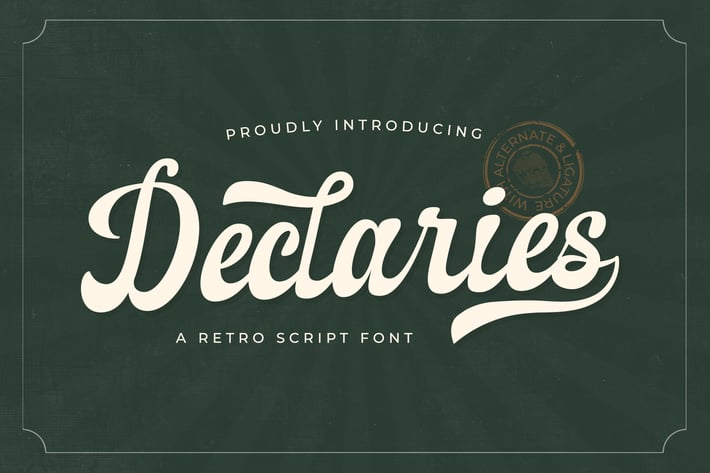
Declaries - A Retro Script Font
Introducing "Declaries" - a retro script font that transports you back to the golden age of vintage design, infusing your projects with nostalgic charm and timeless appeal.
With its fluid strokes and authentic retro style, "Declaries" captures the essence of mid-century typography, making it perfect for adding a touch of vintage flair to your designs. Whether you're creating retro logos, signage, apparel designs, or packaging, this script font brings an air of nostalgia and authenticity to any project.
Embrace the retro vibes of "Declaries" as it effortlessly enhances your designs. With its classic letterforms and retro charm, this font adds a sense of warmth and personality to your creations, ensuring that they stand out with nostalgic allure.
Step into the past with "Declaries" and let your designs evoke the timeless elegance of retro design with its captivating script style.
– Lowercase
– Ligature
– Alternate
– Multilingual Support